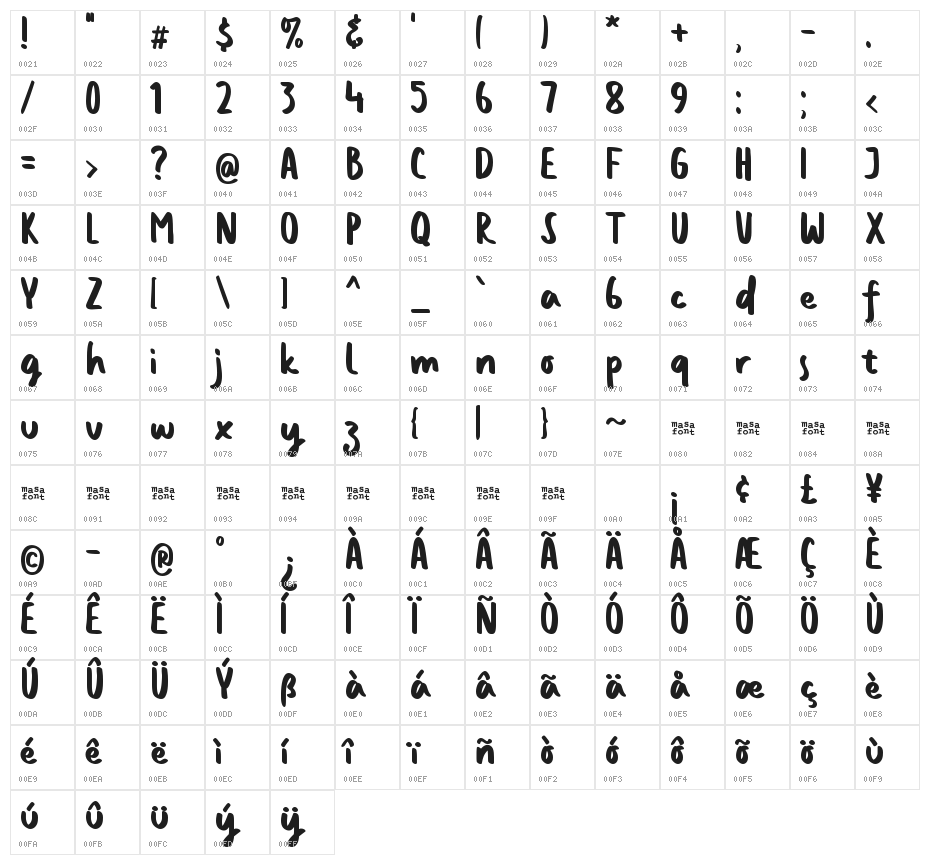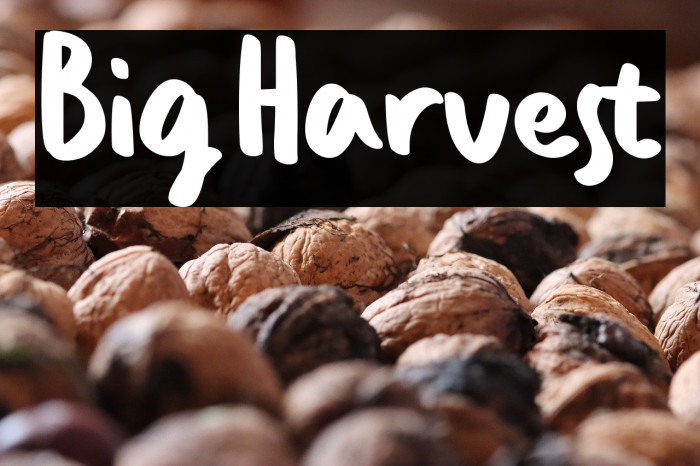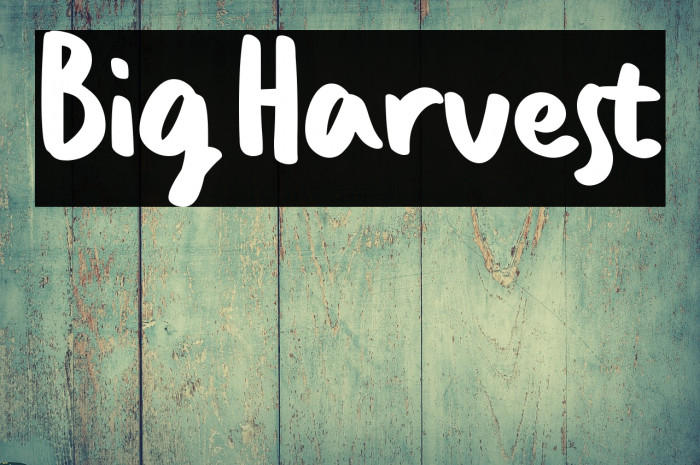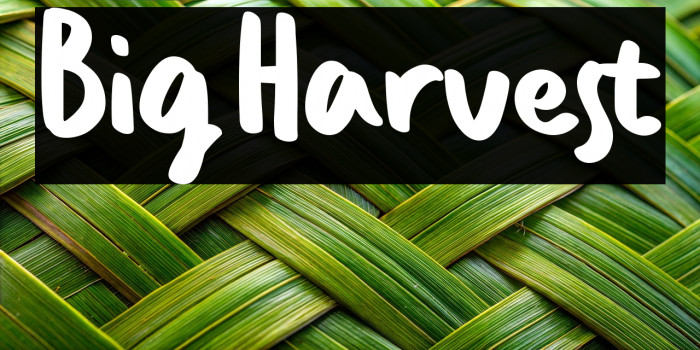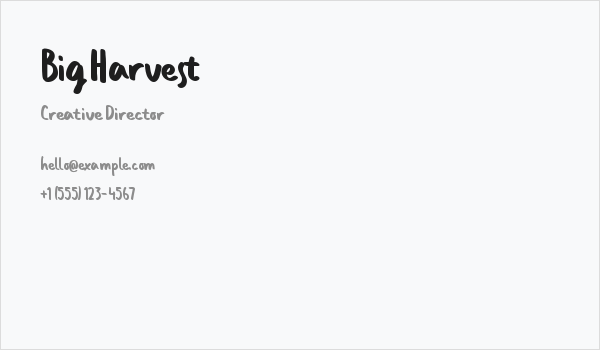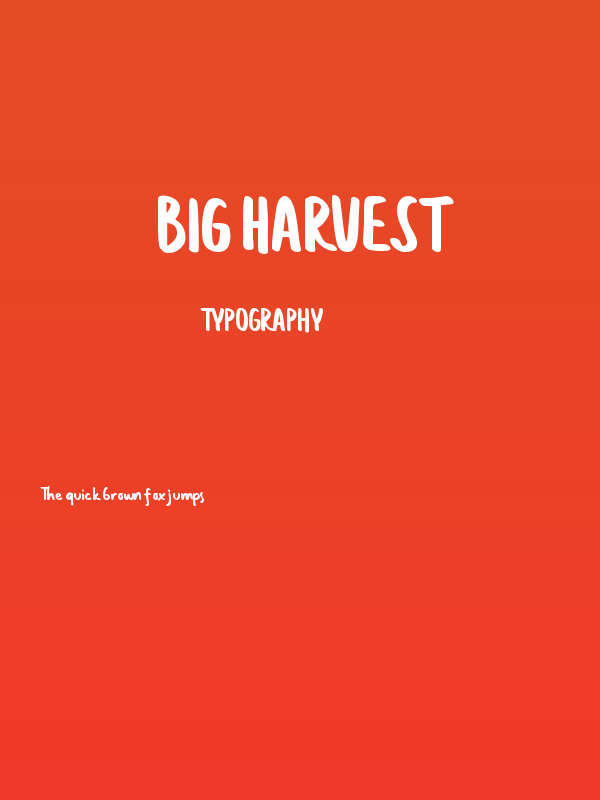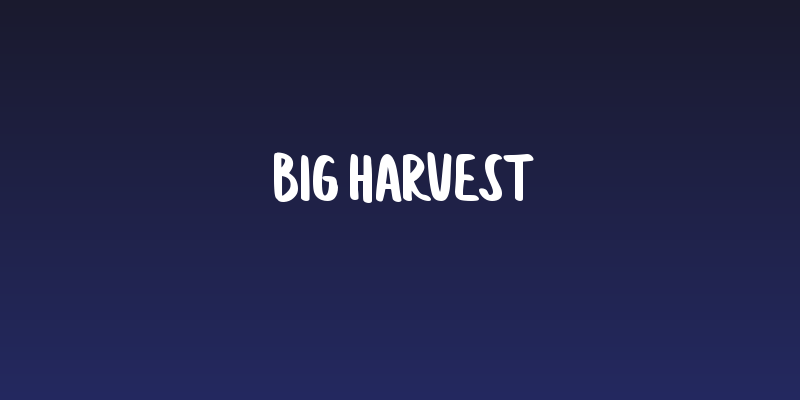
Big Harvest Font
Big Harvest Description
A playful, bold handwritten font with rounded edges and irregular, organic letterforms. The characters have a casual, friendly appearance with varying stroke thickness and a slightly uneven baseline, giving it a lively and approachable feel.
| Overall Style | Playful, Casual, Decorative |
| Use Case | Headlines, Posters, Logos, Informal Branding |
| Proposed Projects | Children's books, posters, greeting cards, branding for casual or creative businesses, social media graphics. |